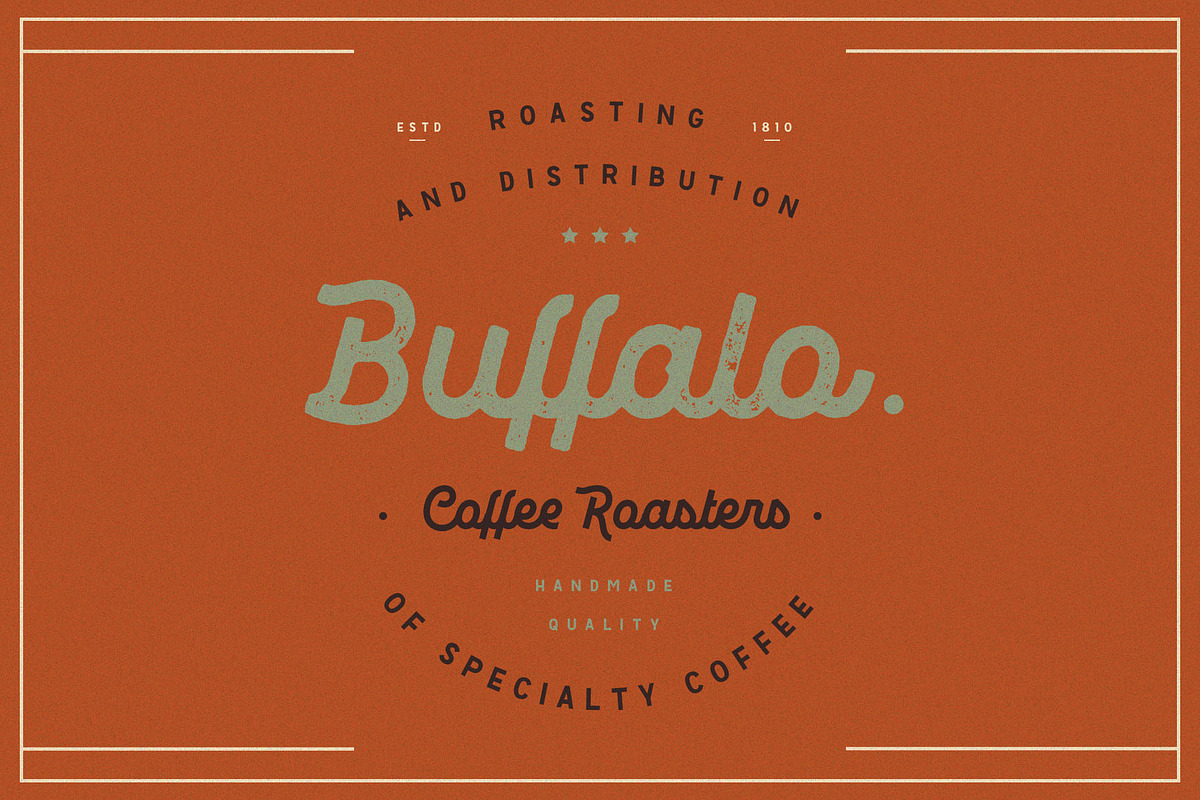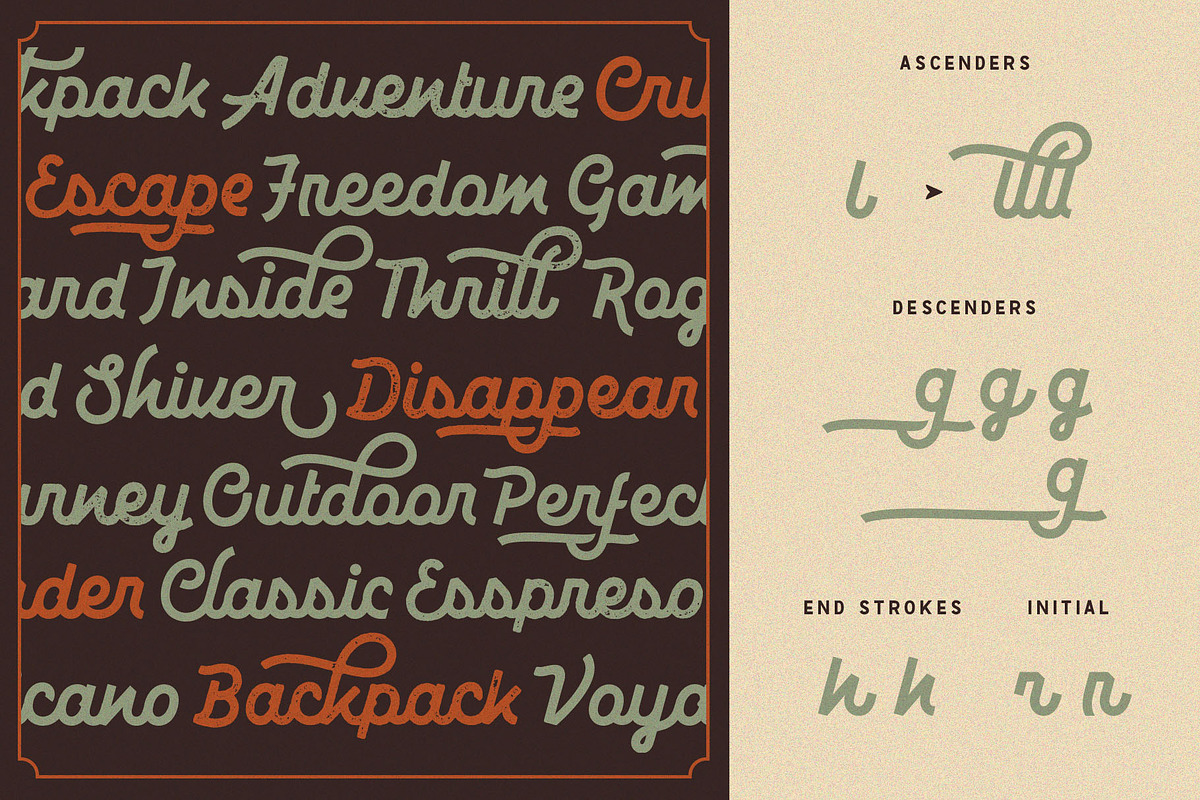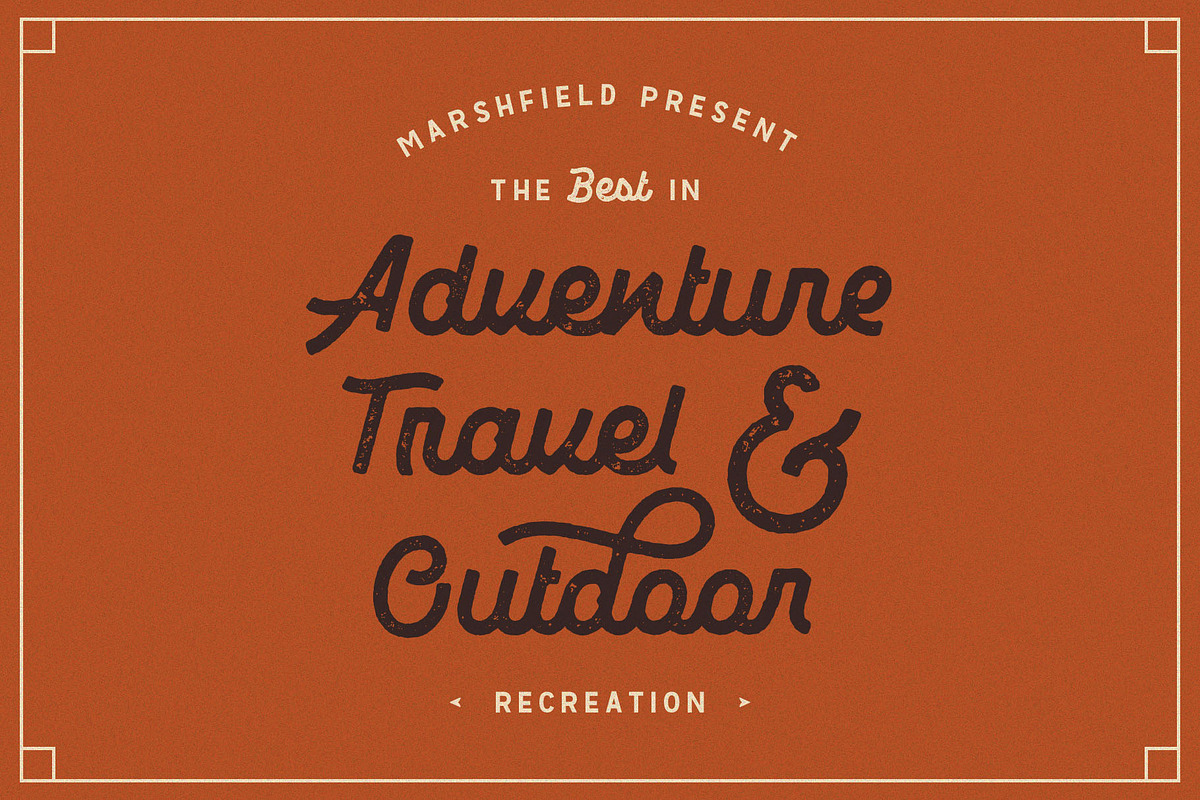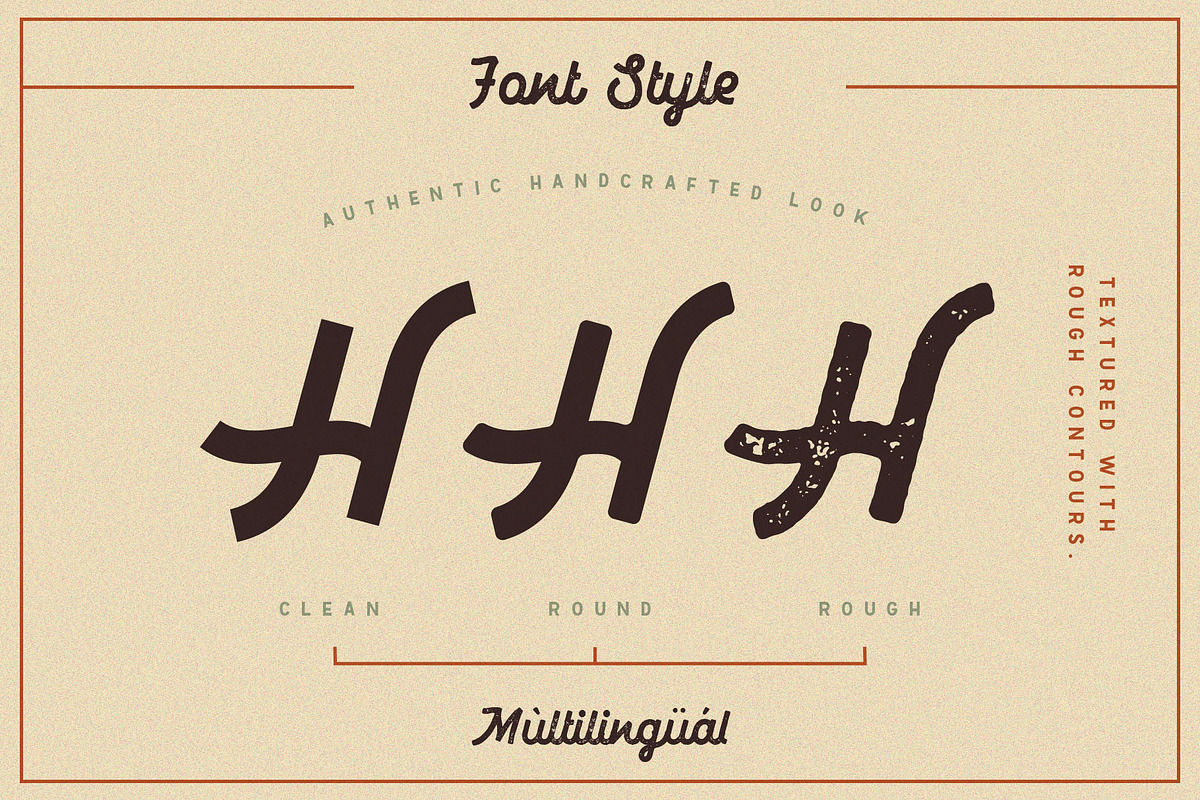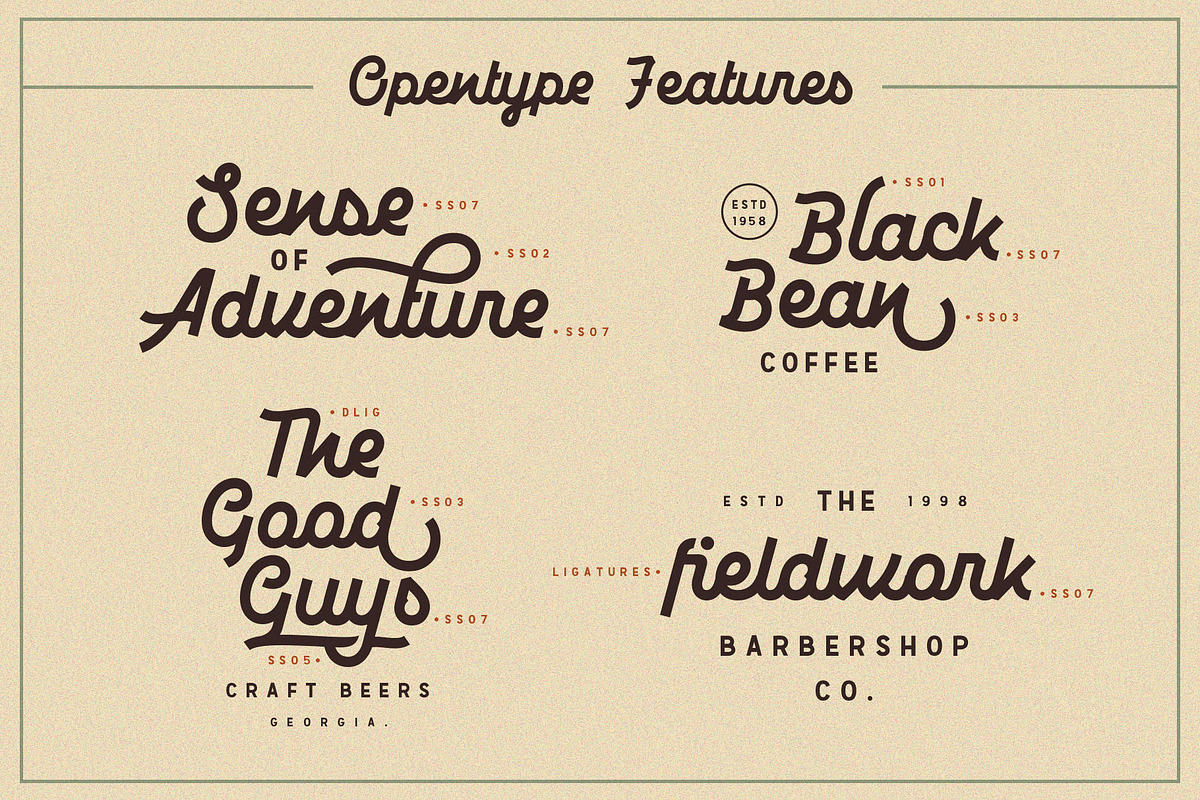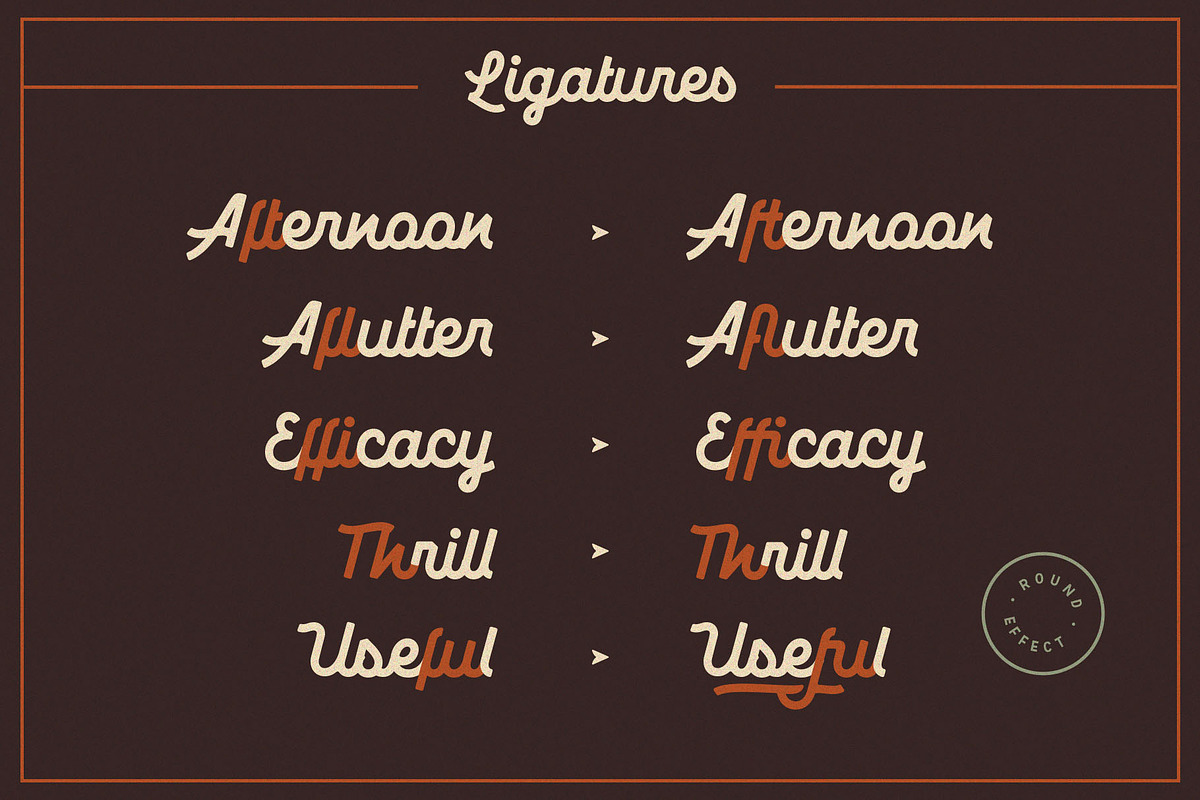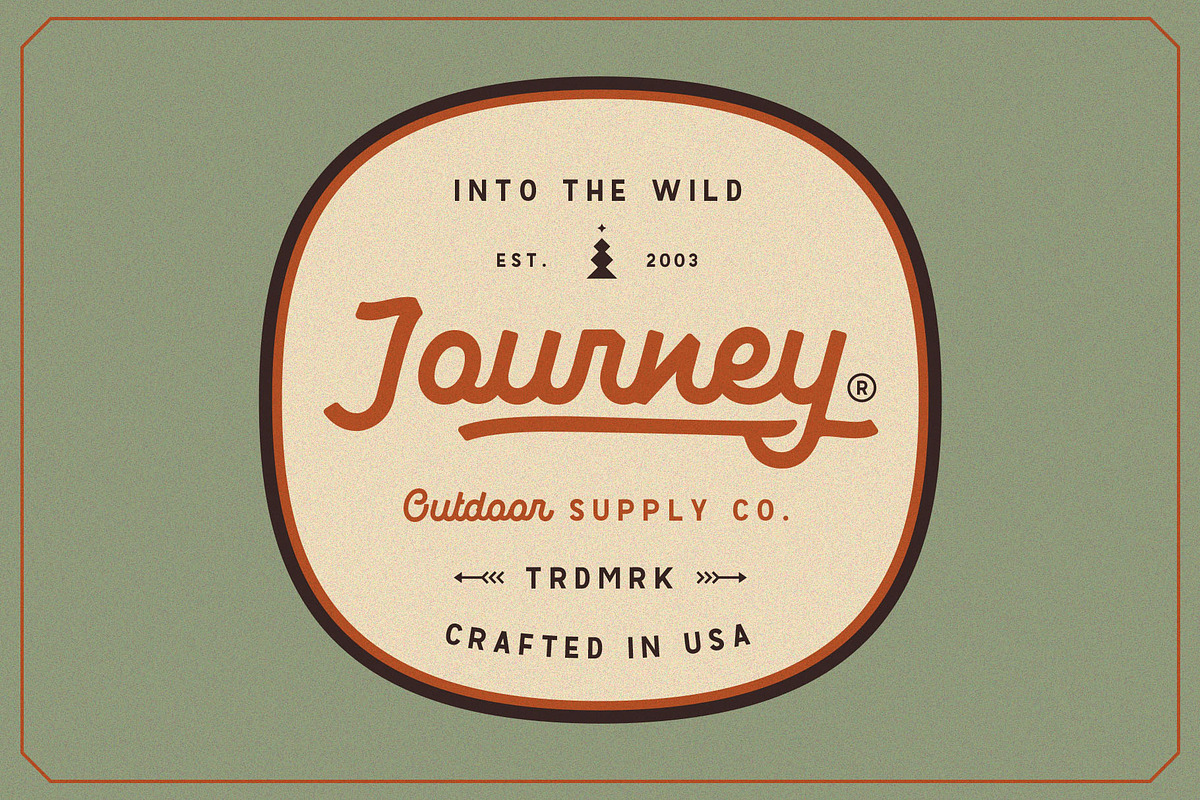
Marshfield Typeface
In collaboration with Revolfe who was experienced with hand-drawn lettering for a project. We've decided to create Monoline Fonts with strong identity for an outdoor design, camping, wild, journey, adventure, masculine, and etc.
Opentype features are available on Marshfield such as Ligatures, Stylistic Alternates (Up to 6 Alternates), Contextual alternates, and Terminal Alternates.
Marshfield Comes with 2 Type of Fonts, Script and Cursive. On each type of fonts have 3 different style, Clean(sharp corner), Round(Rounded Corner), and Rough(Rough Version). 6 Fonts in Total for completing your design style.
- Marshfield Comes with 2 Type of Fonts, Script and Cursive.
Marshfield Typeface by Adam Fathony fits naturally into Branding, posters, packaging, typography.